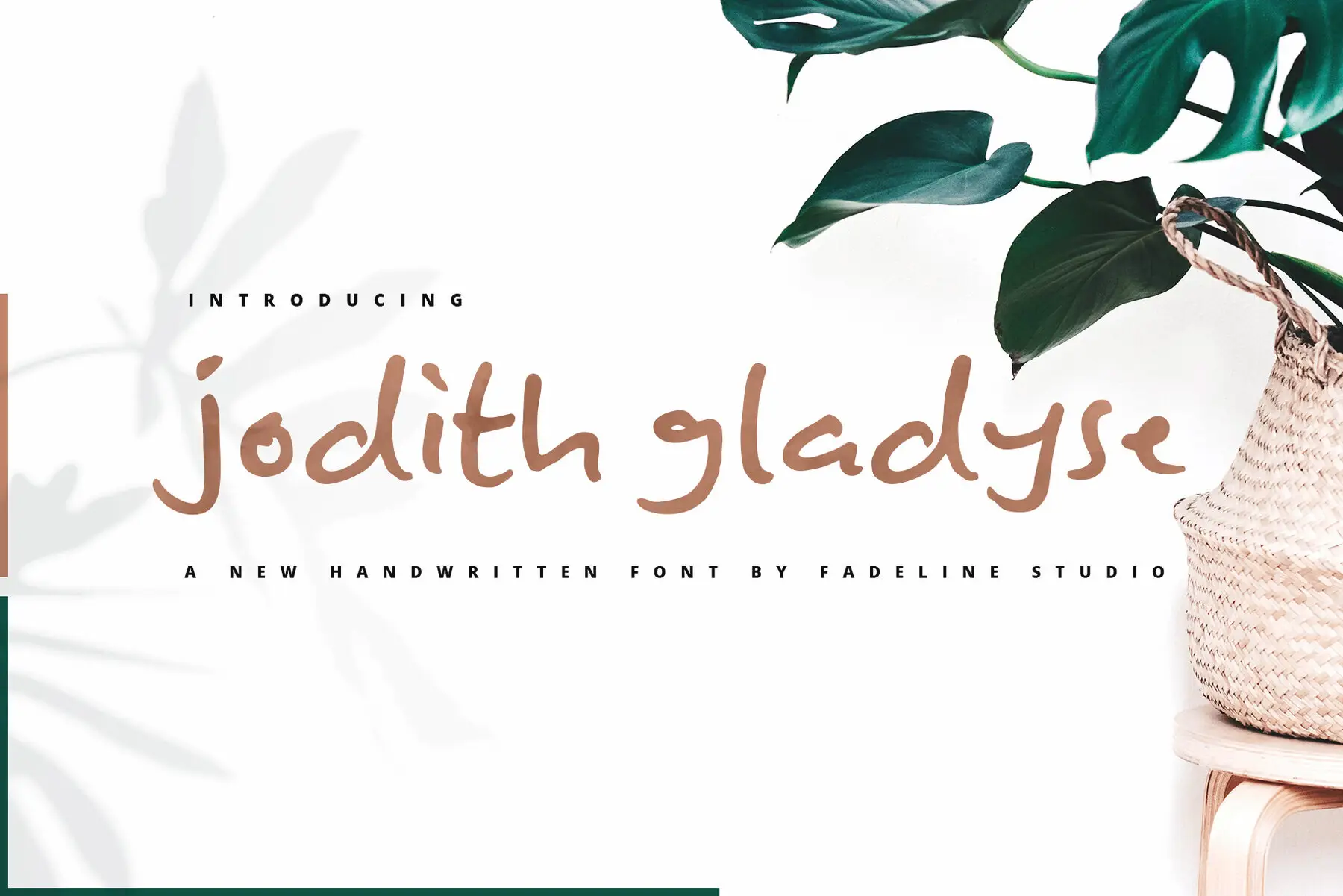
Jodith Gladyse Font
Jodith Gladyse
Meet Jodith Gladyse, the latest stunning handwritten font that balances natural elegance with a sweet simplicity. This thoughtfully crafted typeface carries a blend of modern charm and a natural flow, offering a versatile style. Whether you seek unique handwriting, sophistication, or understated luxury, Jodith Gladyse has it covered. Perfect for enhancing your latest design trends, this font adapts beautifully to your creative vision. Discover how Jodith Gladyse can seamlessly elevate all your lovely projects with its natural, sweet, and simple design.Jodith Gladyse
Versatility and Elegance